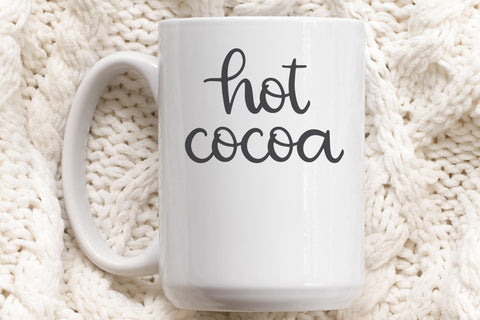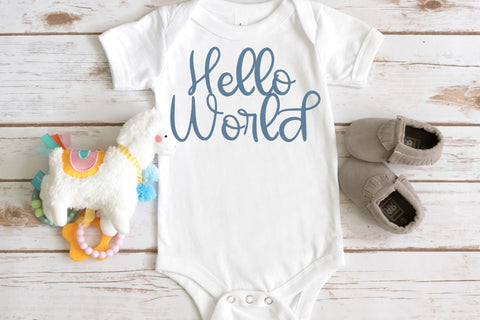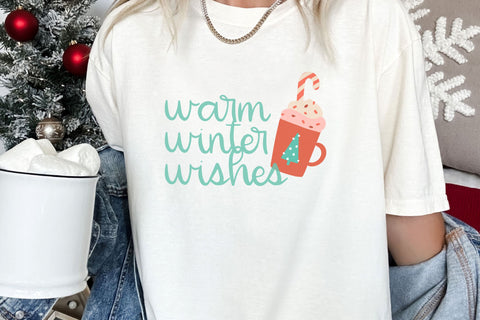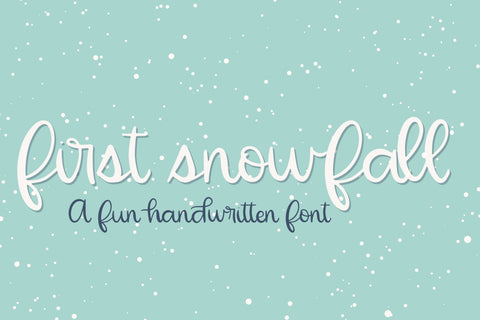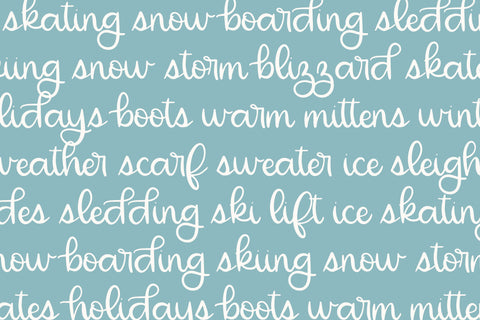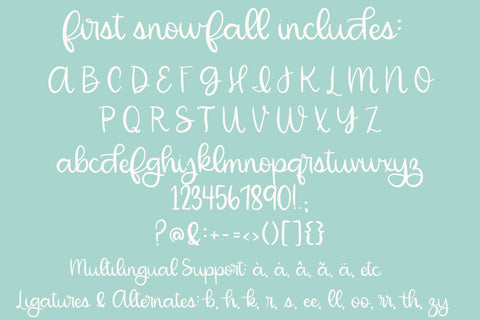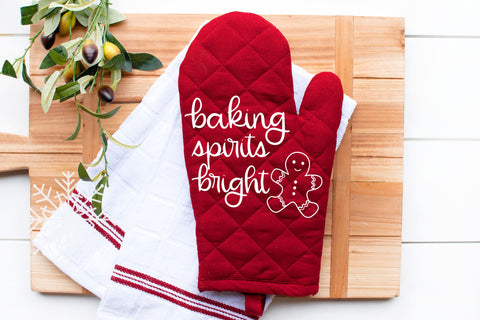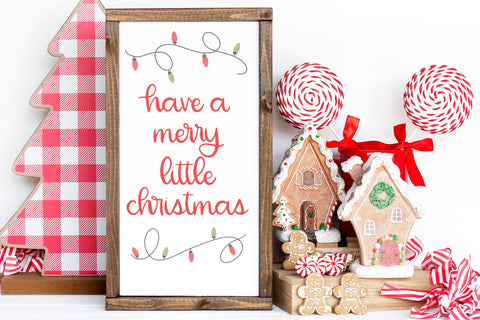
First Snowfall, a cute handwritten font, cursive script
Introducing First Snowfall, our adorable handwritten font, perfect for all your creative projects! With its elegant curves and smooth strokes, our cute holiday script brings a delightful touch to invitations, greeting cards, and personalized crafts. Our script font is compatible with Cricut SVGs, Goodnotes, Procreate, and many other programs. Transform your designs into stunning works of art with our versatile cute cursive christmas handwriting.